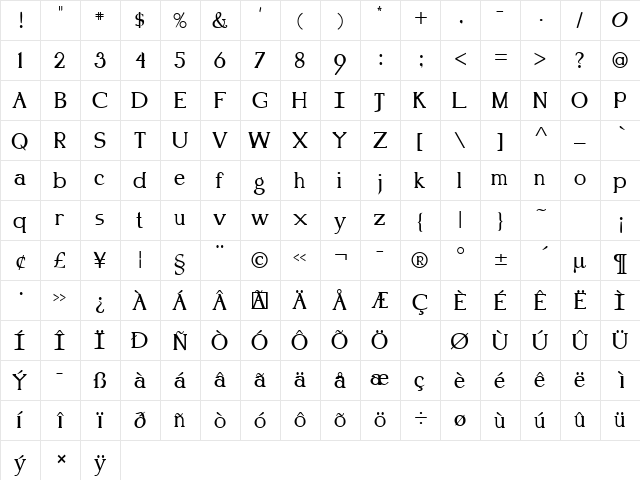
Kennon Regular
Design Context for Kennon Typeface
Kennon is a composed and adaptable typeface that performs quietly and consistently across a wide range of design contexts.